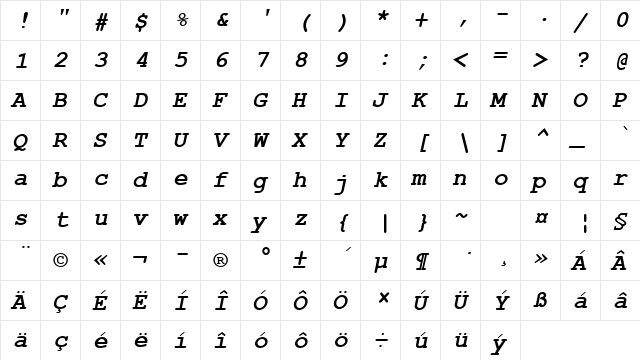
Courier New CE Bold Italic Font Preview
Design Context for Courier New CE Typeface
Courier New CE uses fixed-width spacing throughout, giving it the structured, systematic character associated with coding environments and technical documentation. The dynamic lean of this cut emphasises speed and emphasis in any layout. Its bold stroke weight gives it real presence on the page.
Pro Tip: Pair Courier New CE with a proportional sans for UI contexts where code-style labels and regular body copy need to coexist.